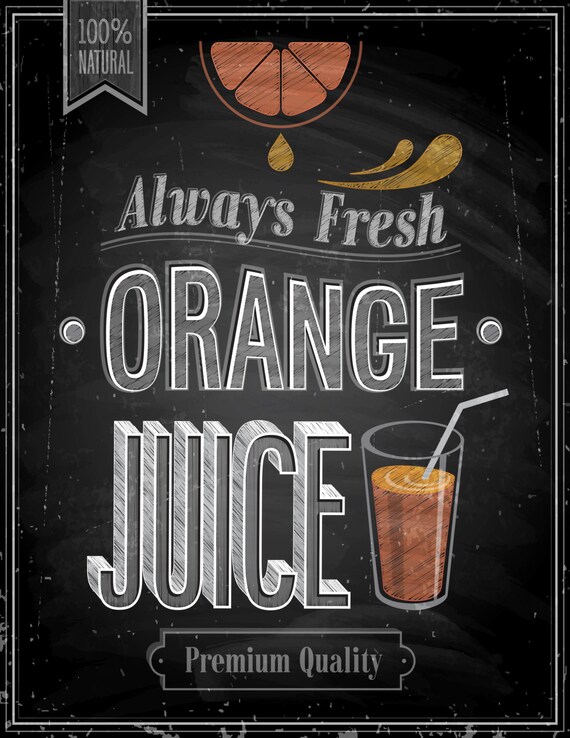
Orange Juice Chalkboard Font . Orange juice by nirmala creative. orange juice font. Orange juice contains 331 characters with extensive latin glyphs that will support most latin based languages. explore our vast selection of free chalkboard fonts. It is script font and has 1 style. download orange juice font family · free for personal use · visit our store here for more fonts :. Orange juice contains 331 characters with. free download of orange juice font. download 10,000 fonts with one click for just $19.95. Paypal account for donation :. licensed for commercial and personal use. orange juice font offers exciting letterforms from mixed case alphabet to numbers and punctuations. free download of orange juice font. download free orange juice font by brittney murphy. Perfect for enhancing your digital designs with a citrus splash!
Click now to create a custom image with your own words that you can download. orange juice is a sketched 3d font created in 2014 by brittney murphy design. by the use of this orange juice cartoon font, share the joy of displaying special designs from comic books, greeting or invitation. explore our vast selection of free chalkboard fonts. Perfect for enhancing your digital designs with a citrus splash! Orange juice by nirmala creative. Orange juice à € by brittney murphy design. this limited glyphs font is for personal use only! But any donation are very appreciated. the latest style letters are perfect for wall displays, wedding invitations, social media post logos, advertisements, product packaging,.
Orange Juice Chalkboard Font Released in 2022 by ronny studio and licensed for personal. Licensed for commercial and personal use. this limited glyphs font is for personal use only! Orange juice contains 331 characters with. Released in 2022 by ronny studio and licensed for personal. the only free fonts currently available seem to be: by the use of this orange juice cartoon font, share the joy of displaying special designs from comic books, greeting or invitation. But any donation are very appreciated. Perfect for enhancing your digital designs with a citrus splash! experience vibrant creativity with our 'free juice, orange fonts'. free download of orange juice font. the latest style letters are perfect for wall displays, wedding invitations, social media post logos, advertisements, product packaging,. explore our vast selection of free chalkboard fonts. Download and install the orange juice. With over 4 million downloads worldwide, orange juice has been used by companies like microsoft, general mills, barnes and noble, and many others. free download of orange juice font.
Look What I Found My Favorite Chalkboard Fonts And Ornaments Zooll Orange Juice Chalkboard Font It is script font and has 1 style. download orange juice font family · free for personal use · visit our store here for more fonts :. Click now to create a custom image with your own words that you can download. orange juice font offers exciting letterforms from mixed case alphabet to numbers and punctuations. With over. Orange Juice Chalkboard Font.
Vintage Orange Juice Chalkboard. Stock Vector Illustration of Orange Juice Chalkboard Font free download of orange juice font. download free orange juice font by brittney murphy. licensed for commercial and personal use. orange juice font offers exciting letterforms from mixed case alphabet to numbers and punctuations. Licensed for commercial and personal use. Download and install the orange juice. Orange juice contains 331 characters with. orange juice is. Orange Juice Chalkboard Font.
Colorful Chalkboard Detox Juice Vector Download Orange Juice Chalkboard Font Released in 2022 by ronny studio and licensed for personal. the orange juice font is a sketched 3d font created in 2014 by brittney murphy design. 4,291,201 downloads (56 yesterday) 35 comments free for personal use. download orange juice font family · free for personal use · visit our store here for more fonts :. orange juice. Orange Juice Chalkboard Font.
Orange juice calligraphy emblem Royalty Free Vector Image Orange Juice Chalkboard Font download orange juice font family · free for personal use · visit our store here for more fonts :. licensed for commercial and personal use. orange juice font. Released in 2022 by ronny studio and licensed for personal. Orange juice contains 331 characters with extensive latin glyphs that will support most latin based languages. Download and install. Orange Juice Chalkboard Font.
Chalk Drawn Fresh Juice Orange. Colorful Label Poster Stickers Food Orange Juice Chalkboard Font Released in 2022 by ronny studio and licensed for personal. download orange juice font family · free for personal use · visit our store here for more fonts :. It is script font and has 1 style. Orange juice à € by brittney murphy design. free download of orange juice font. But any donation are very appreciated. . Orange Juice Chalkboard Font.
Orange Juice Font By Brittney Murphy Design TheHungryJPEG Orange Juice Chalkboard Font free download of orange juice font. orange juice is a sketched 3d font created in 2014 by brittney murphy design. download free orange juice font by brittney murphy. Orange juice contains 331 characters with. Released in 2022 by ronny studio and licensed for personal. the orange juice font is a sketched 3d font created in 2014. Orange Juice Chalkboard Font.
Fruit Juice Chalk Chalkboard Orange Farm Stock Vector (Royalty Free Orange Juice Chalkboard Font download orange juice font family · free for personal use · visit our store here for more fonts :. by the use of this orange juice cartoon font, share the joy of displaying special designs from comic books, greeting or invitation. Orange juice contains 331 characters with. orange juice font offers exciting letterforms from mixed case alphabet. Orange Juice Chalkboard Font.